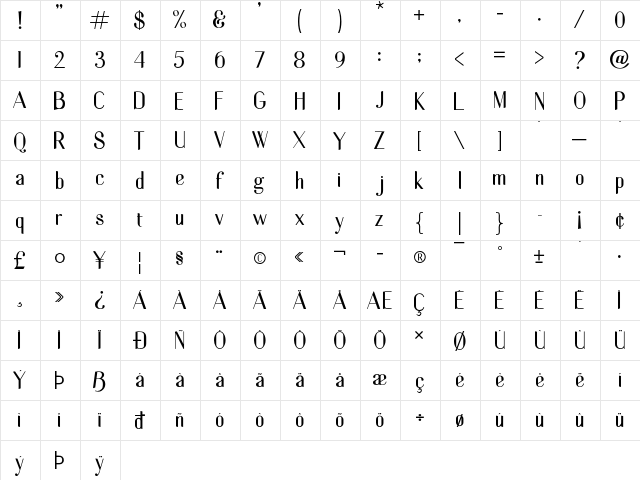
Bentalista Regular
| Designer | zamjump studio 2020 - Ahmad Zamzami |
Design Context for Bentalista Typeface
Bentalista offers clean, dependable letterforms without strong stylistic allegiance, making it a practical choice for designers who need flexibility.